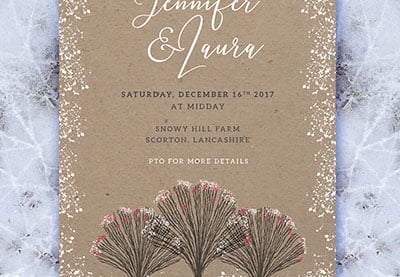
Choosing the best wedding fonts for your wedding invitations needn’t be daunting—here you’ll find a selection of the most beautiful wedding calligraphy fonts, wedding script fonts, wedding cursive fonts and unusual wedding invitation fonts to add the perfect finishing touch to your invitations and event stationery.
Looking for the perfect rustic wedding fonts, fancy wedding fonts, or perhaps more modern wedding fonts? You won’t want to miss our selection of the best fonts for wedding invitations, below, as well as professional tips for font pairing wedding invitations and incorporating typography into your wedding designs.
For the Traditionalist: Wedding Script Fonts
Script, cursive and handwritten fonts are firm favorites for wedding stationery, and with good reason. Able to give a romantic and elegant mood to designs, they also work beautifully for setting the names of the couple.
From simple brush scripts to ornate calligraphy styles, discover our selection of the best wedding script fonts below.
Pro tip: Team a script or cursive font with a clean, minimal sans serif for a balanced font pairing. The romantic mood of a script font will be tempered and made modern and stylish with a simple sans serif like Magdelin or Liber.
1. Qindom
A simple and striking brush font which retains the legibility of text, Qindom is a hard-working and versatile script font that would work just as well for rustic invitations as more traditional and formal stationery.
2. Brandine
This thin and flowing brush script has an understated and homespun quality, which would make it a perfect fit for rustic country wedding invitations or discreet save-the-date cards.
3. Marison Brieny
Looking for a script font with a modern spirit? Marison Brieny balances clean lines with a romantic sensibility, making for a simple and elegant cursive style.
4. Catties
A calligraphy font with a casual, youthful style, Catties would work beautifully for informal invitations. Or why not try setting the script in metallic foil to add a touch of luxurious glamor?
5. Charlotte
Charlotte is a jaunty and feminine handwritten font, with a joyful and celebratory mood. With a carefree style, this font would be an excellent choice for couples looking to create chic and modern wedding invitations.
For the Modernist: Modern Wedding Fonts
Whether you’re planning a ceremony in the city or simply feel that ornate or traditional fonts are not your style, these modern wedding fonts will help to give your designs a more contemporary edge.
Pro tip: Some sans serifs can lack romance and emotion, but you can inject more romance into the style by using decorative borders and metallic foiling or by pairing a sans serif with a script font or serif typeface.
6. Enriq Round Sans
This rounded sans serif has a hand-crafted style that lends it a cheerful and fashionable personality. Reminiscent of 1930s sans serif type styles, this font would also work beautifully for creating wedding logos or place settings.
7. Orchid
Another sans serif with an old-world feel, Orchid is an elegant typeface that would work equally well as a display or body font. The varied line thicknesses of the letters gives the font a faint Art Deco mood, making it a supremely elegant choice for wedding stationery.
8. Valencia
An Art Deco sans serif with a minimal and clean style, Valencia would be the perfect choice for city ceremonies or glamorous hotel-set weddings. Set the type in gold foiling to maximise its Jazz Age elegance.
9. Kenjo and Omega Sans
Blending Japanese minimalism with calligraphy traits, Kenjo is a very modern and stylish take on a script style. The display font is paired with a geometric sans serif, Omega Sans, to create the perfect cosmopolitan font pairing.
10. Aadam
A serif font with modern leanings, Aadam is simple and charming with a minimal, 1930s-inspired design. Its chiselled style would be further enhanced by embossing the type onto your invitations.
11. Giaza
Taking cues from modern serifs like Didot and Bodoni, Giaza is an ultra-stylish display font with enhanced swashes and ligatures. Perfect for fashionable or ultra-glamorous weddings.
For the Old Soul: Vintage and Rustic Wedding Fonts
If you adore the design styles of eras past or are perhaps planning a wedding with a historic theme, these vintage-flavored fonts will be sure to give an air of old-world romance to your wedding stationery.
Pro tip: Vintage fonts can be given a more authentic feel by overlaying textures or printing your invitations onto more rustic and unrefined paper stock. Look for materials that add purposeful imperfections to your designs, such as grainy textures, discoloration or fluted edges, to maximise the vintage mood.